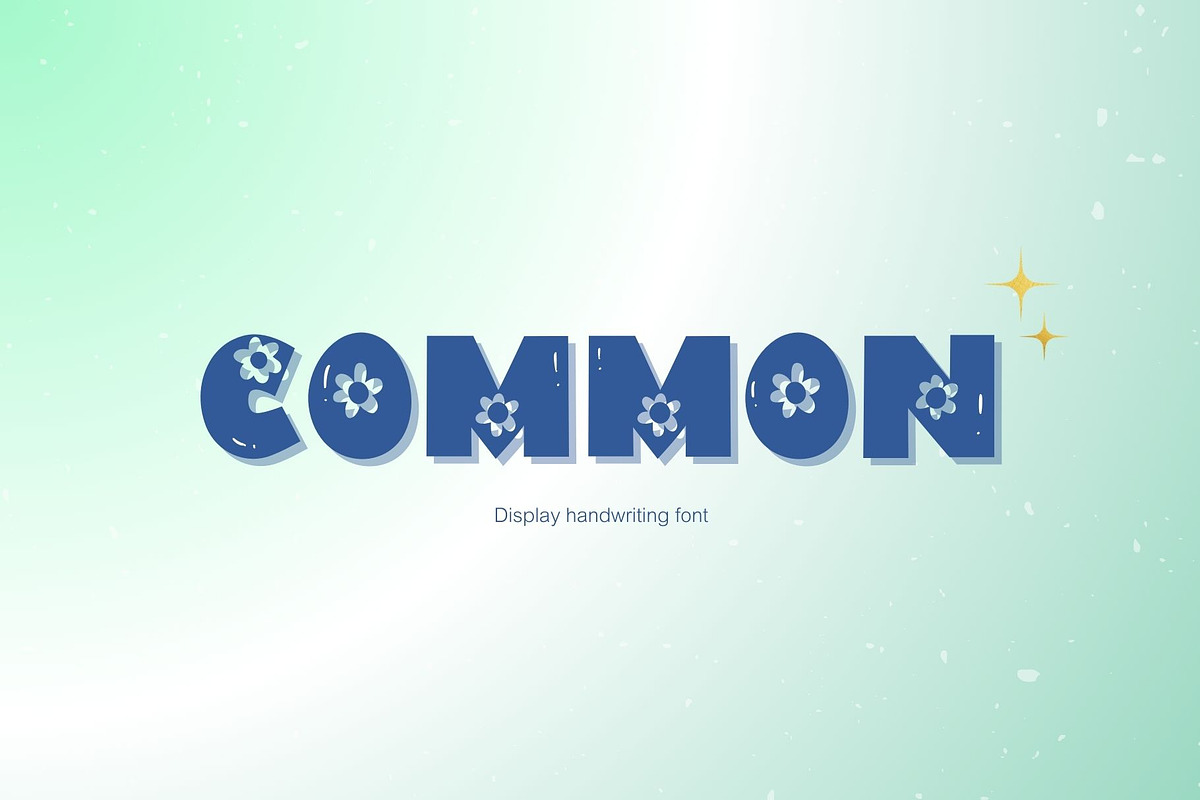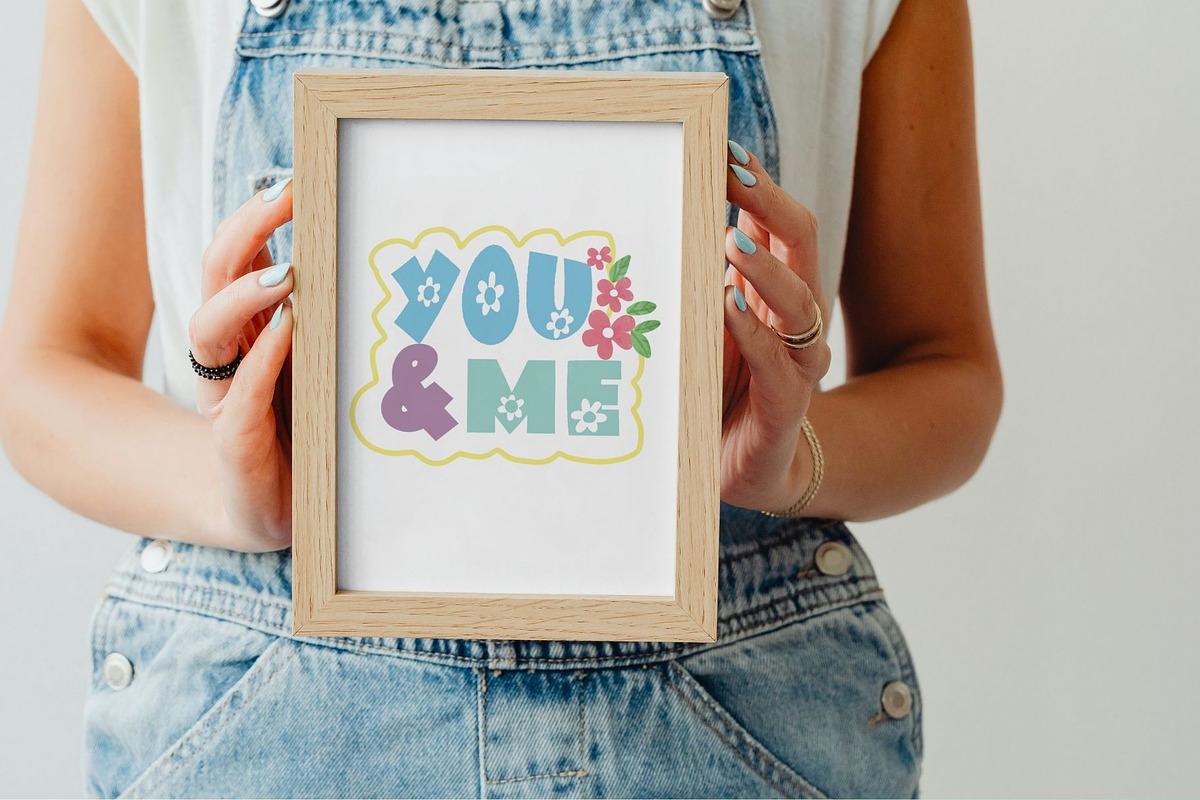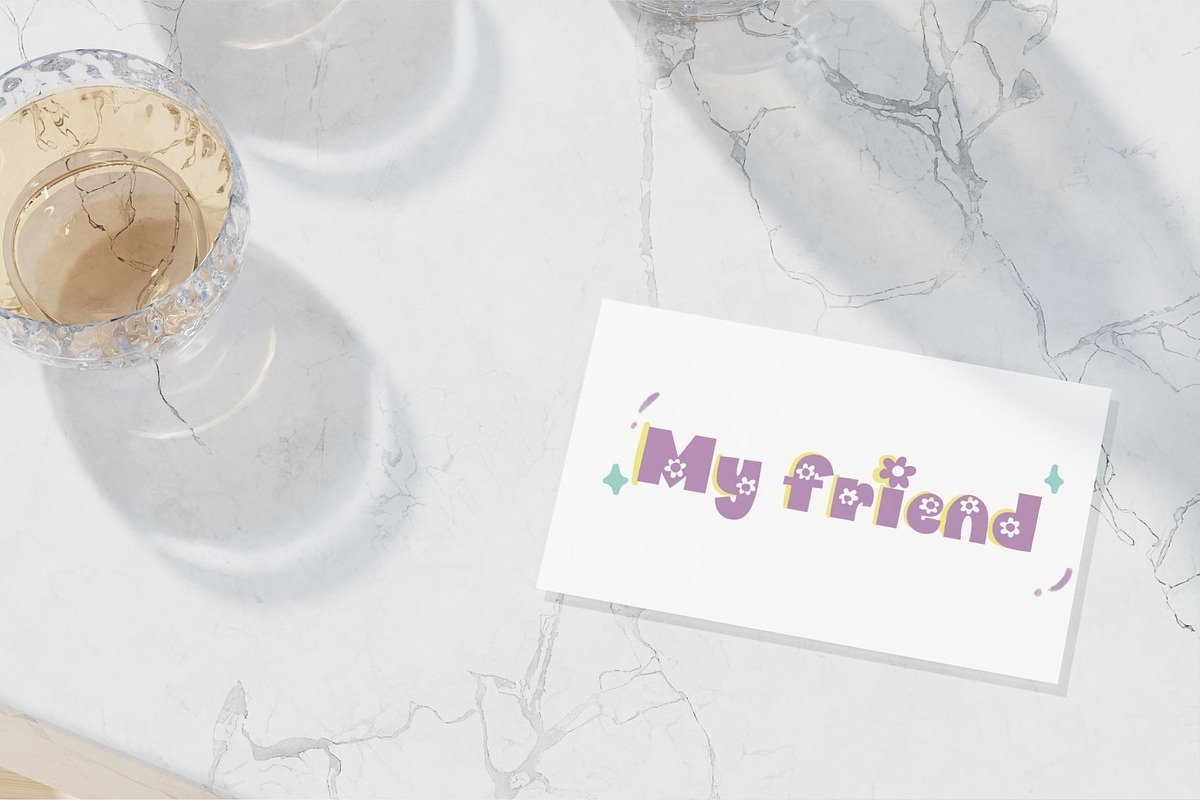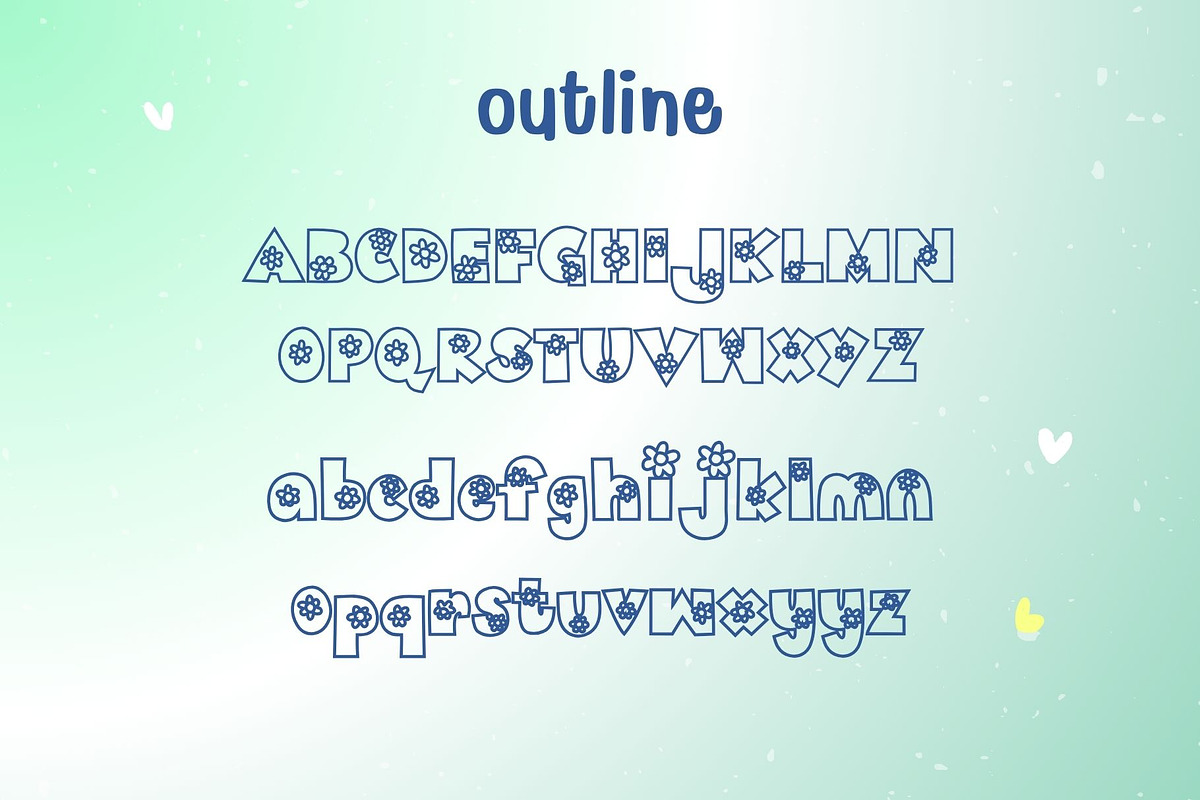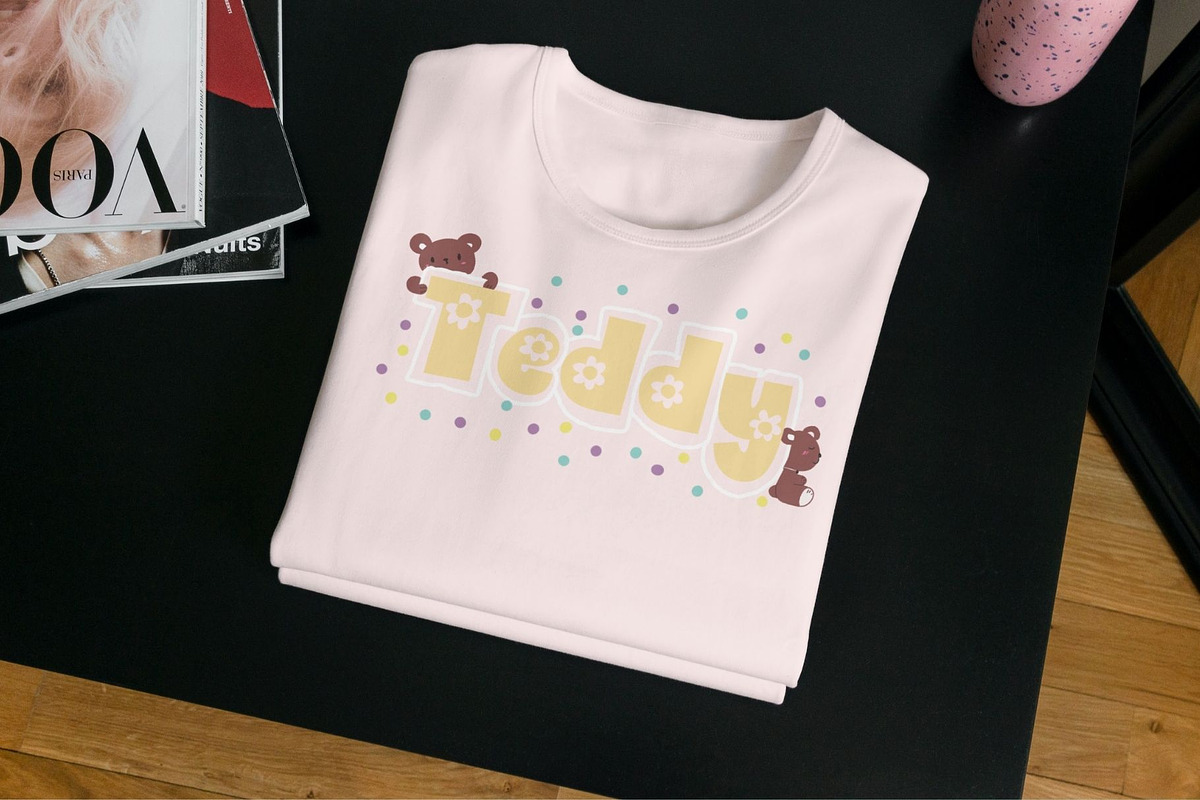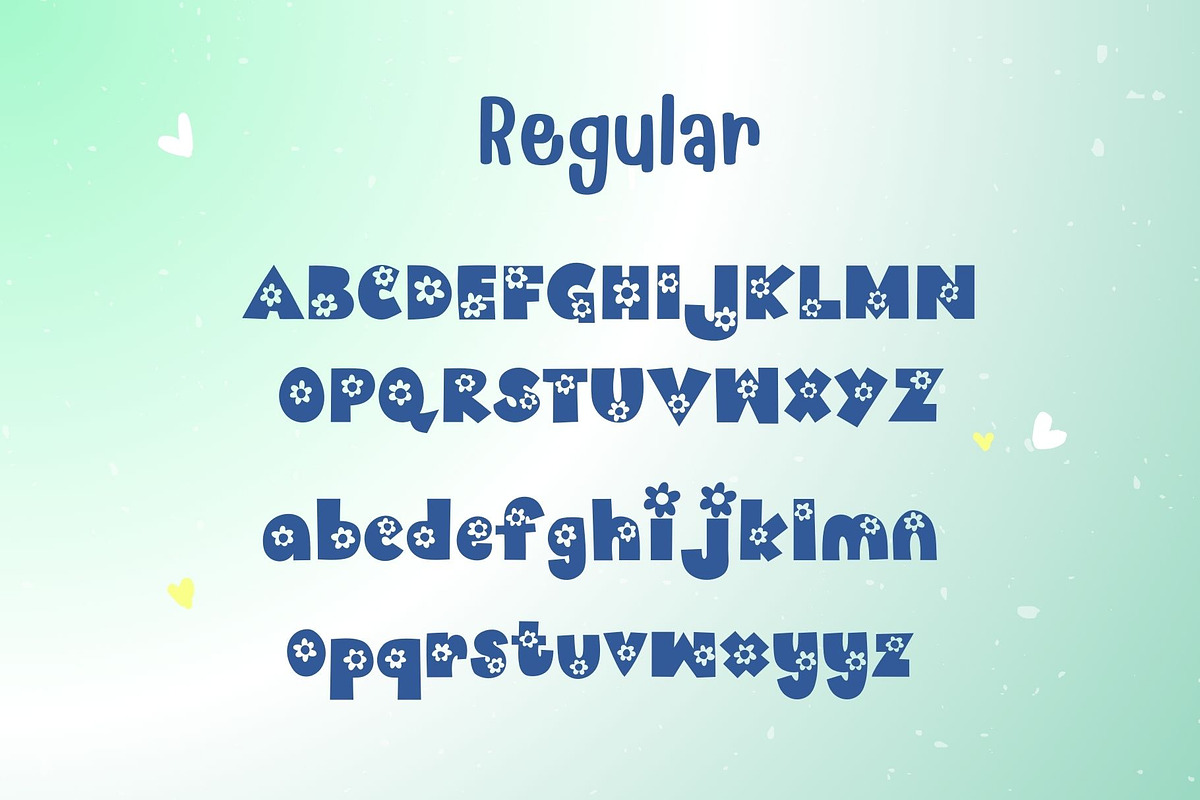
Common font
Common display handwriting font is a delightful decoration that makes designing feel fun, featuring intricate flower patterns. You can use it in a variety of design projects, including bags, clothing, glassware, and more, that resonate with your style and personality.